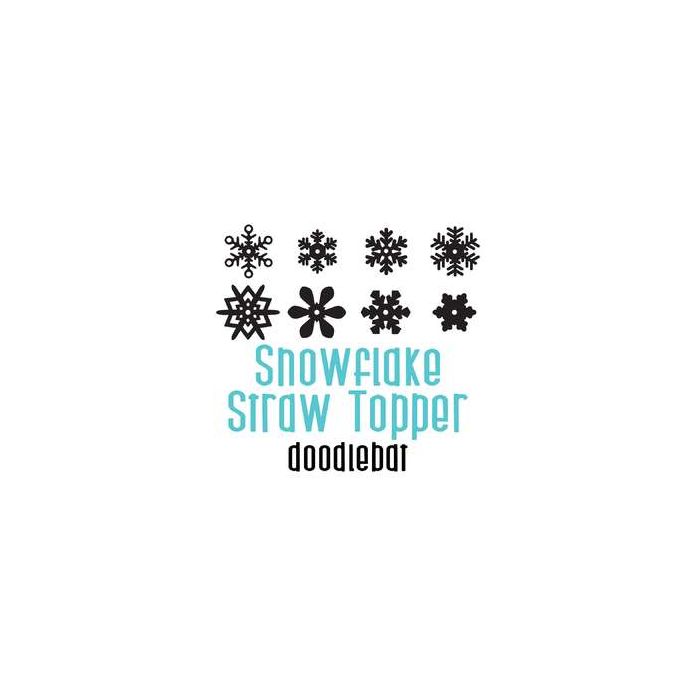
This adorable full color doodlebat font features fun snowflake straw toppers. Perfect for cards, crafts, gifts, decor, scrap book pages, planner stickers and more!